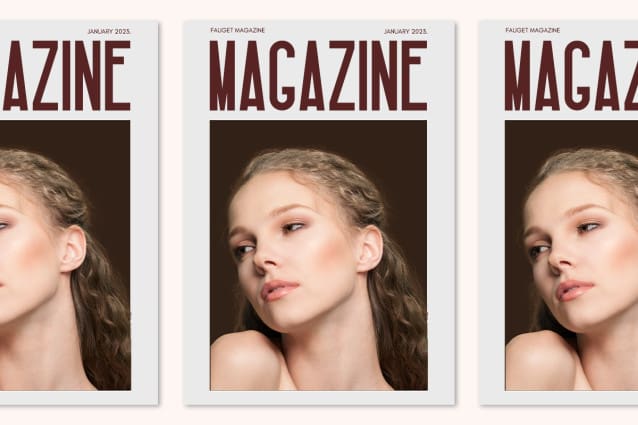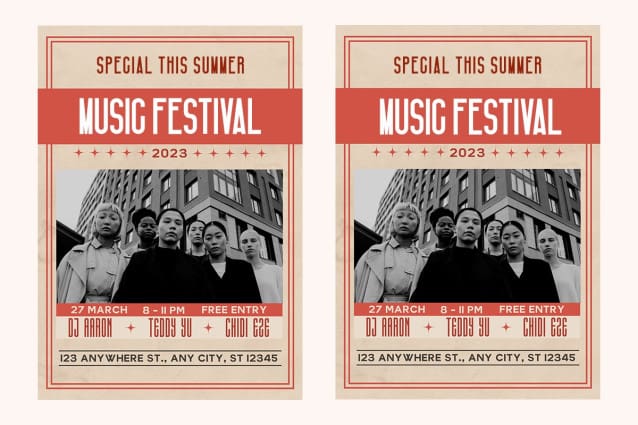
Beatrisa Font
Beatrisa Font, a modern sans serif font that blends elegant simplicity with contemporary flair. Perfect for graphic designers, typographers, and creatives seeking a clean and versatile typeface, Beatrisa offers a sleek and sophisticated design that enhances any project with its refined minimalism.
Ideal for branding, editorial layouts, websites, logos, and packaging, Beatrisa’s crisp and well-balanced characters provide a professional and polished aesthetic. Each letter is meticulously crafted to ensure clarity and visual appeal, making your designs both elegant and impactful.
The “Beatrisa” font includes a complete set of uppercase and lowercase letters, numbers, punctuation marks, and special characters. This comprehensive set ensures seamless integration into various design projects, from modern branding to stylish editorial content.
Elevate your designs with Beatrisa Font, the modern sans serif font that combines elegant simplicity with modern flair.